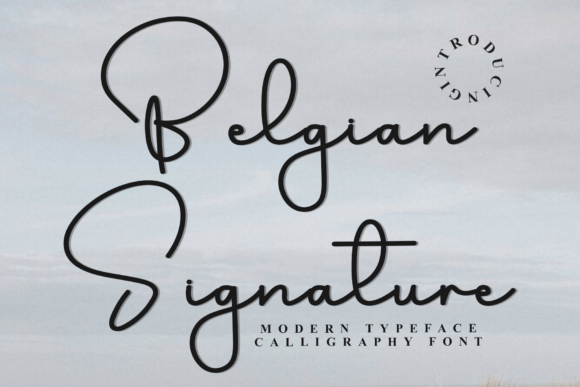
Adding a Touch of Sophistication with the Belgian Signature Font
Have you ever stared at a beautifully handwritten signature on a luxurious invitation or a high-end business card, wondering how to replicate that level of elegance in your own design work? As a designer, you know that the right font can make all the difference in creating a memorable brand identity or adding a touch of sophistication to a special project.
Enter the Belgian Signature Font, a stunning script typeface designed to bring a sense of hand-penned luxury to your creative projects. This modern calligraphy font features elongated letterforms and smooth character joins, perfect for creating customized artistry and high-end professional presence.
With the Belgian Signature Font, you’ll be able to elevate your designs and stand out from the crowd. Its unique characteristics make it an exceptional choice for boutique brand identities, personal signature watermarks, elegant event stationery, and professional social media headers.
Belgian Signature Font Key Features
- Font Family: The Belgian Signature Font is a unique, custom-designed font family with a distinctive Belgian flair.
- Unique Characteristics: The font features a distinctive, elegant style with subtle flair and flair tips, giving it a sophisticated and professional look.
Belgian Signature Font Review
The Belgian Signature Font is an elegant and sophisticated typeface that can add a touch of luxury to any design project. Here’s what I think:
- ✨ Elegant lines and curves create a sense of refinement and sophistication.
- ✨ The font’s classic feel makes it suitable for traditional and formal designs.
- ✨ It’s highly legible, even at smaller font sizes, which is essential for body text.
- ✨ The font family includes multiple weights, making it easy to create visual hierarchies and add depth to your design.
- ⚠️ The font may feel too formal or traditional for modern or trendy designs.
- ⚠️ It lacks the uniqueness and personality that some designers might crave.
- ⚠️ Some users may find the font’s lines and curves too ornate or distracting.
Overall, the Belgian Signature Font is a solid choice for designers who want to create a classic, sophisticated look. While it may not be the most exciting or innovative font, it’s a reliable and elegant option that’s sure to please. If you’re looking for something a bit more modern or edgy, you may want to consider other options.
For a more authentic signature look, use a combination of uppercase and lowercase letters, and vary the font size and spacing. The Belgian Signature Font is ideal for business cards, letterheads, and email signatures. It can also be used in creative projects, such as invitations and posters.